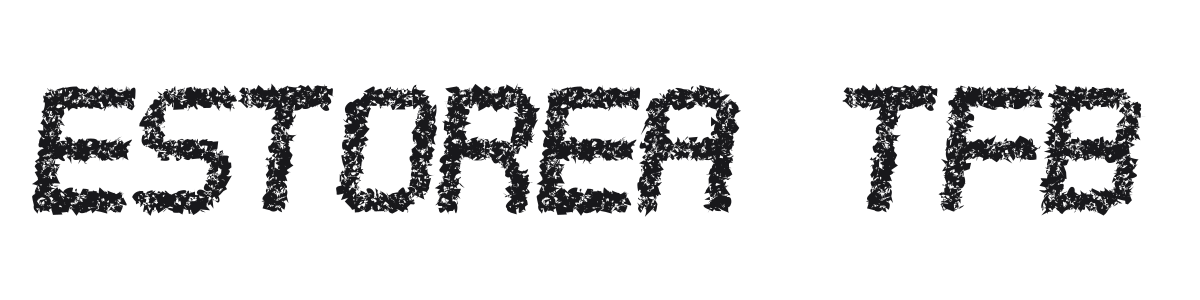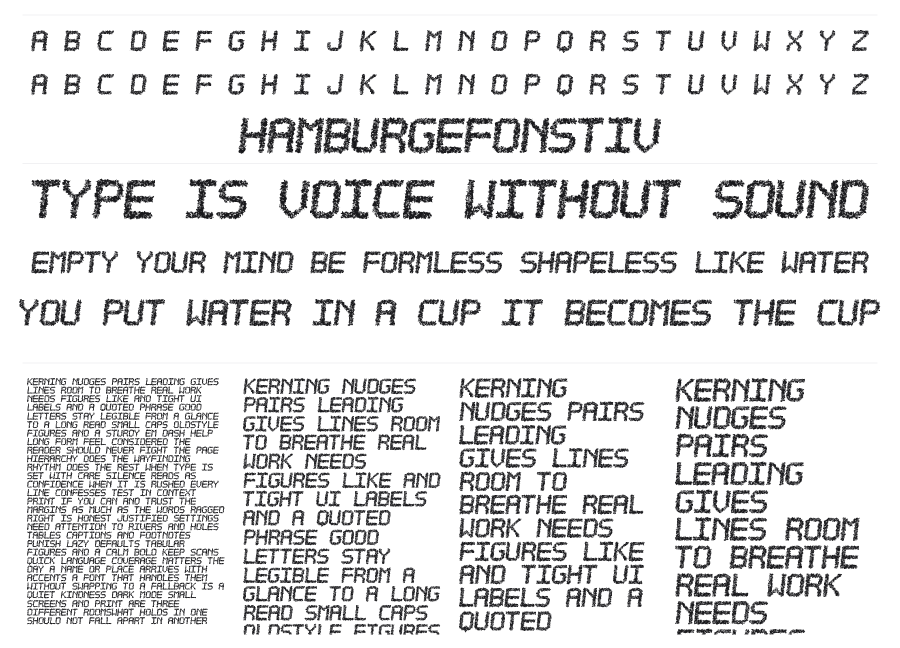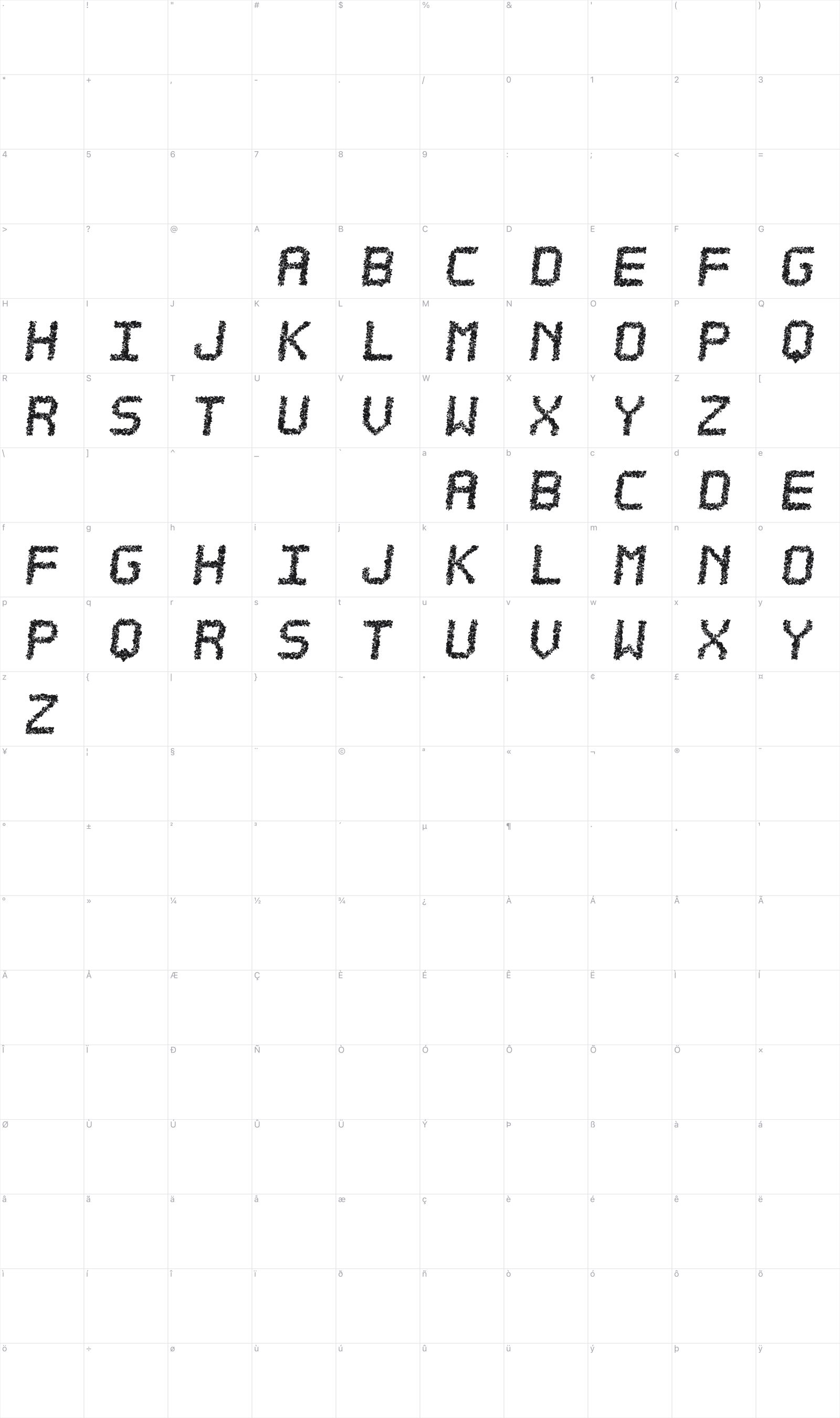
Estorea TFB
Estorea TFB is a bold, eroded display font with a rough, crumbling texture across every character. The underlying structure is squared and geometric, close to a monospaced block sans, but the heavily degraded surface gives it a raw, handmade energy. It works at large sizes where the texture reads clearly.